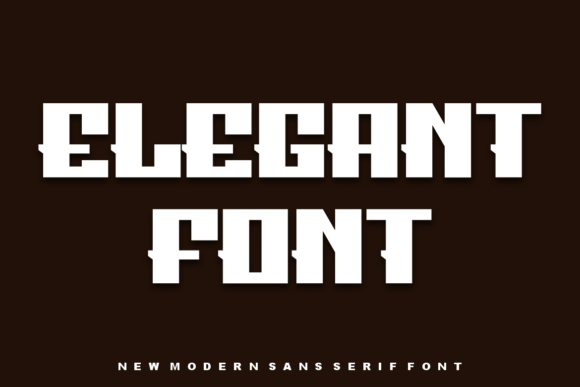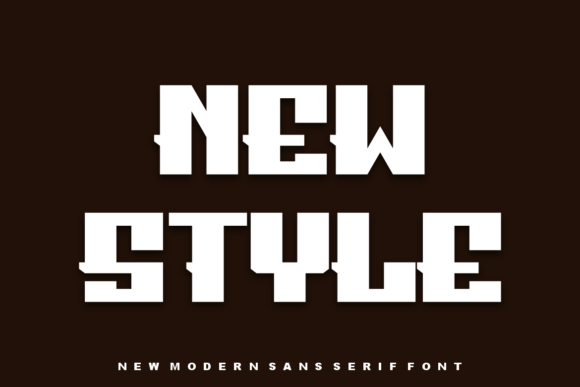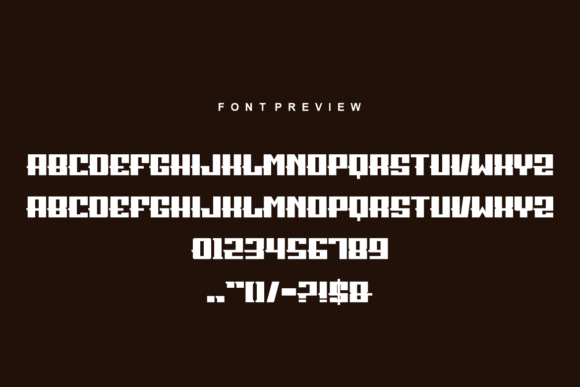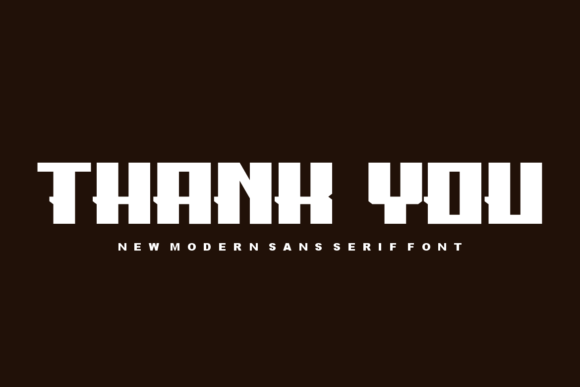
A Game-Changing Font: Gosyner
Gosyner is a modern sans serif font that has clean lines and a sleek, simple look. It’s perfect for adding a stylish and contemporary feel to your designs. Whether you’re a designer, crafter, or creative hobbyist, Gosyner is definitely worth checking out.
What I Love About Gosyner
- ✨ Clean and simple design: Gosyner’s sleek lines and minimalist aesthetic make it perfect for modern designs.
- ✅ Highly legible: Even at small sizes, Gosyner remains clear and easy to read.
- 💡 Versatile: Gosyner works well for both digital and print designs, making it a great addition to any design toolkit.
While Gosyner is an excellent font, there are a few things to keep in mind: 🤔
- ⚠️ Limited character set: Gosyner doesn’t have an extensive character set, so it may not be suitable for designs that require a wide range of special characters.
- ⚠️ Not ideal for body text: While Gosyner is legible, it’s not the best choice for long blocks of body text. It’s better suited for headings and titles.
A Practical Guide to Using Gosyner
- Experiment with Gosyner’s OpenType features, such as stylistic alternates, to add some extra flair to your design.
- Take advantage of Gosyner’s glyphs and OpenType features to add more depth and interest to your design.
The Designer Behind Gosyner
Gosyner was designed with the modern designer in mind. While the actual designer is unknown, it’s clear that they were inspired by the latest trends in sans serif fonts. The result is a font that’s both stylish and versatile.
Q: What type of designs is Gosyner best suited for?
A: Gosyner is perfect for modern designs that require a clean and stylish look. It’s ideal for headings, titles, and other short-form content.